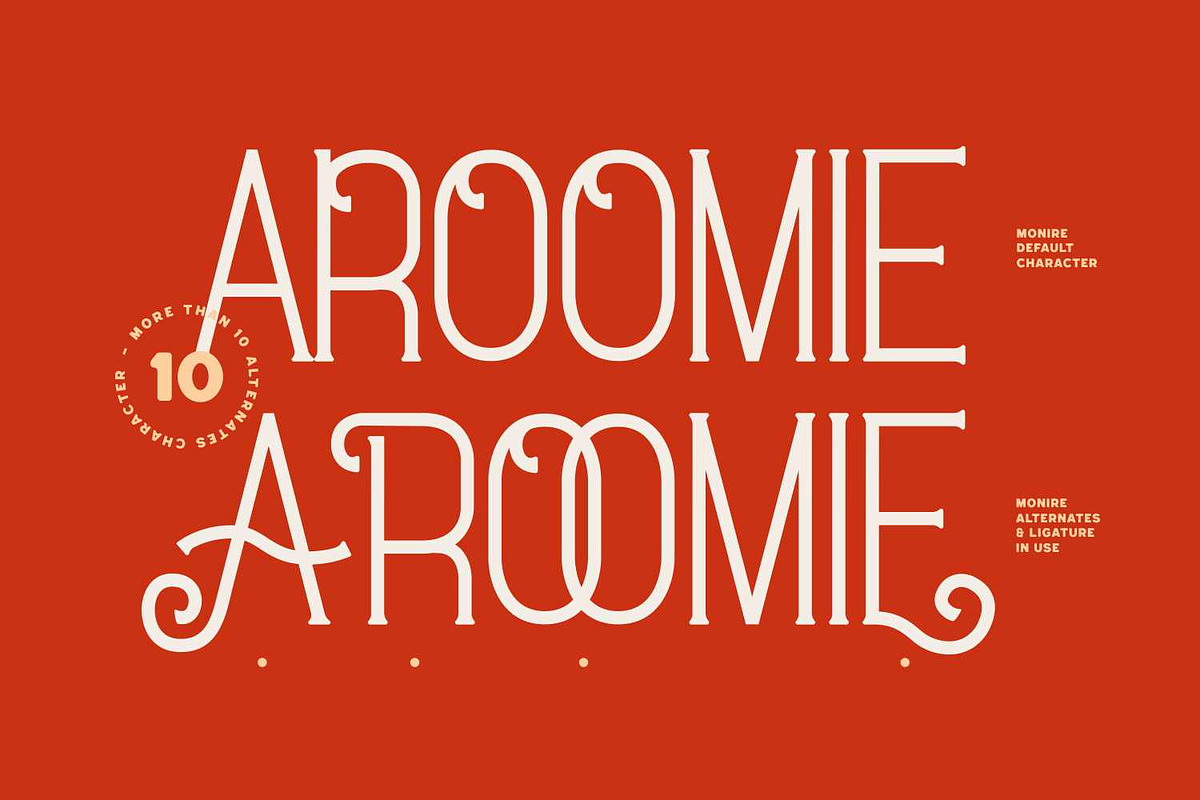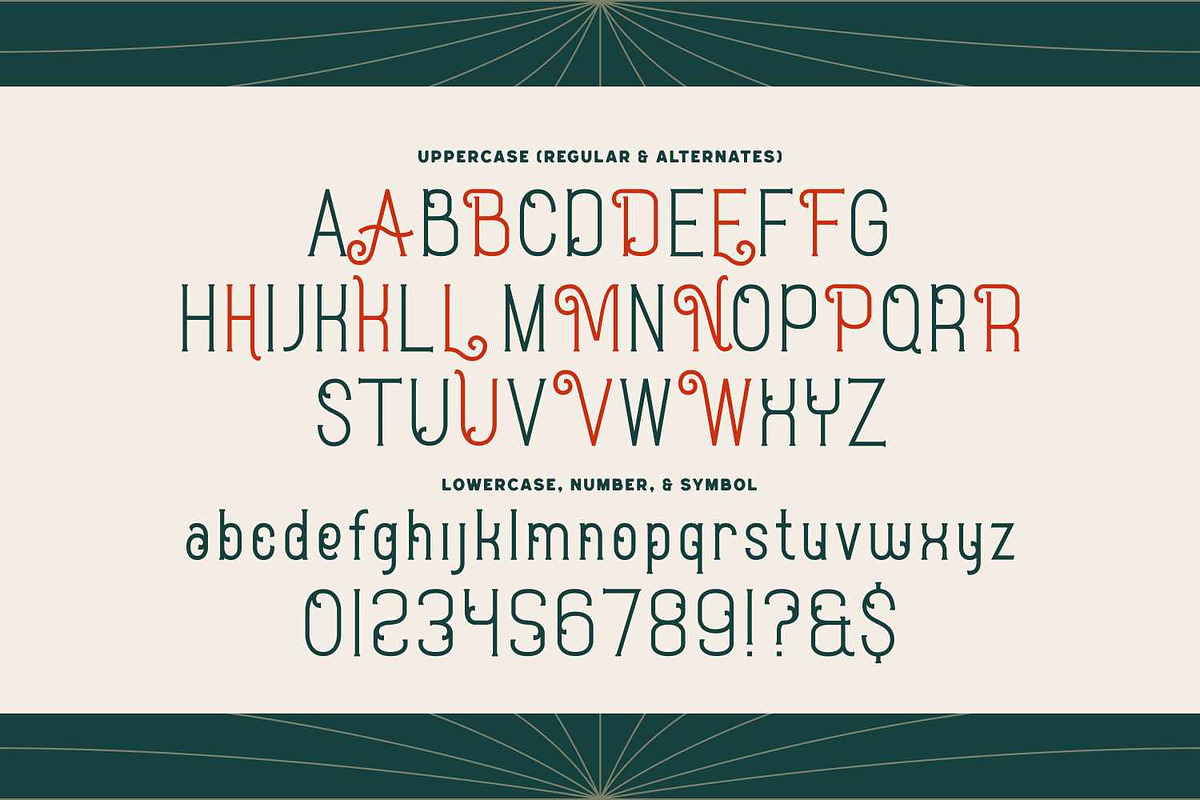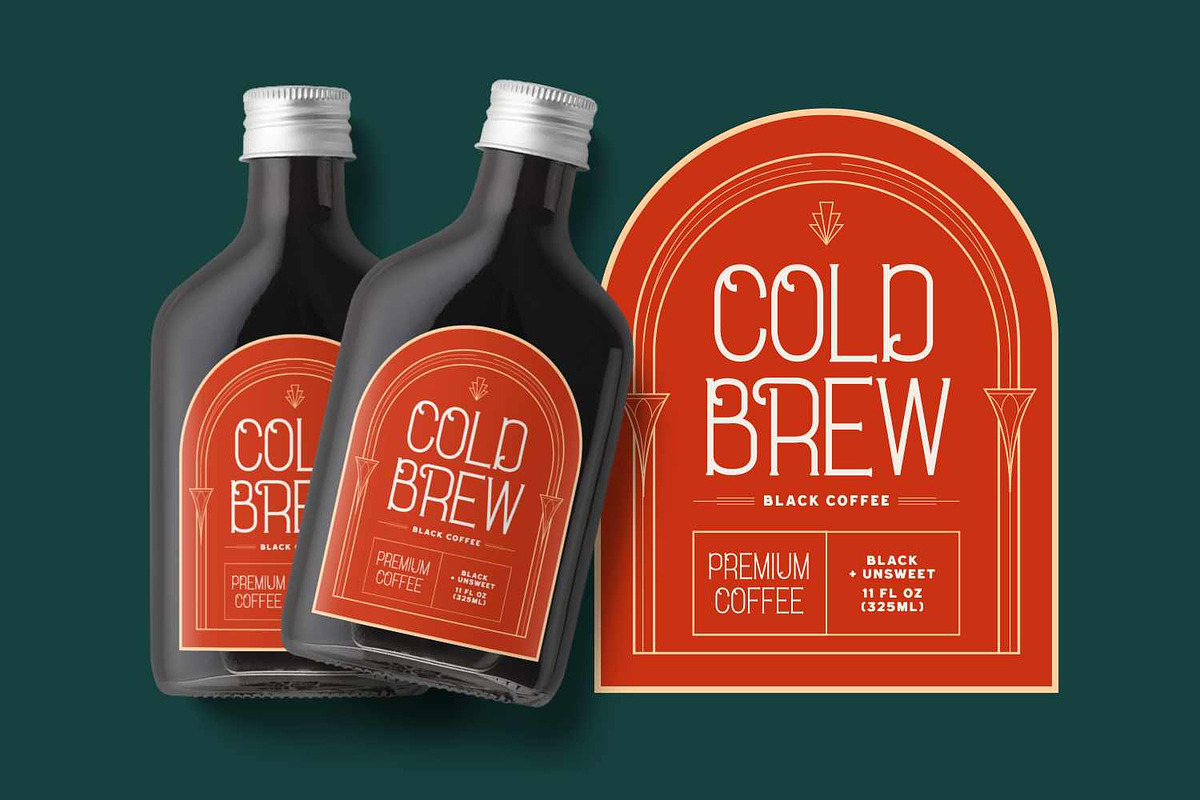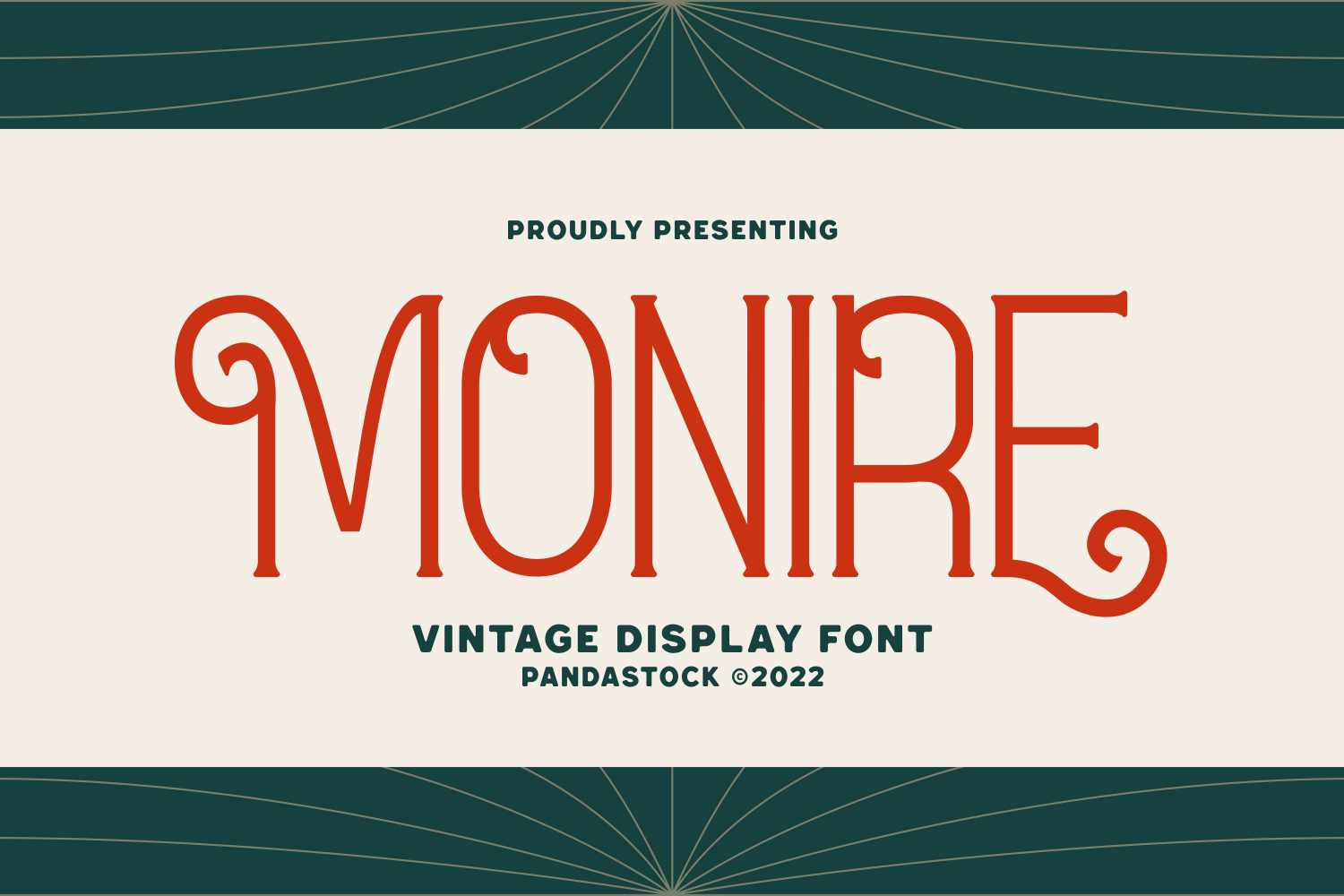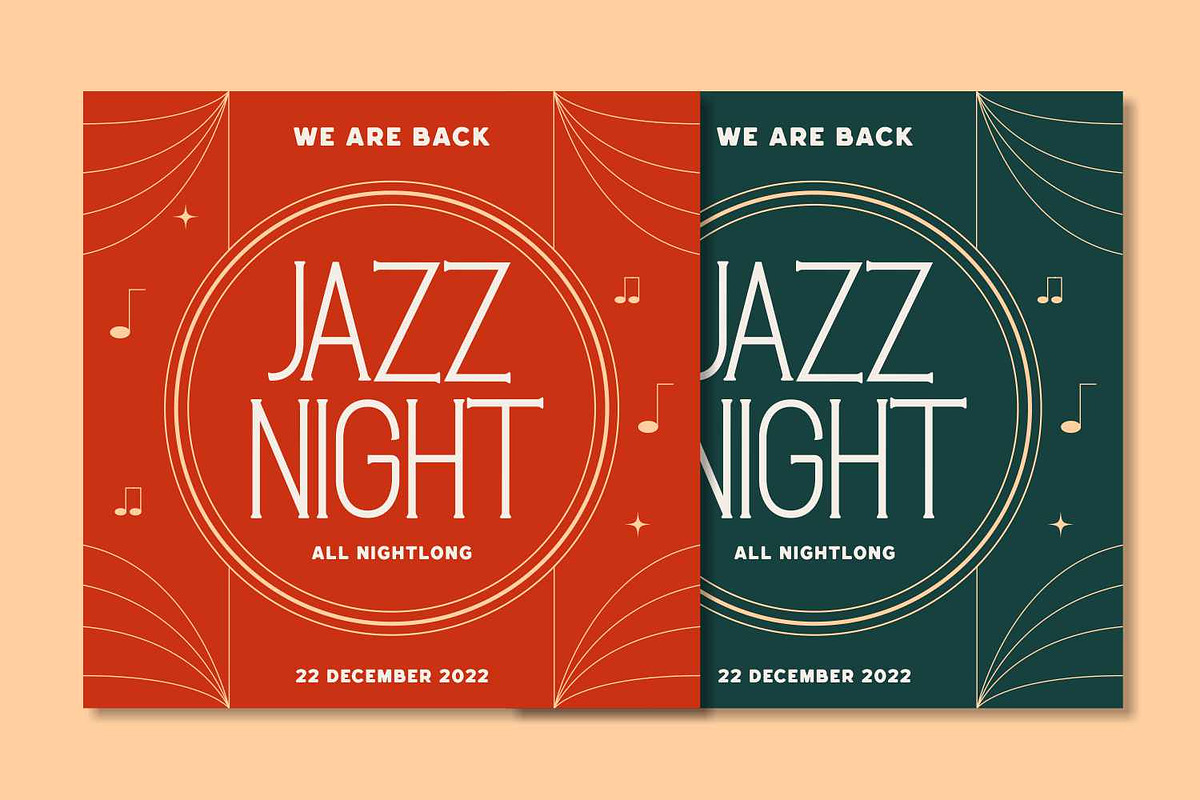
Monire - Classy Serif Typeface
Monire is a classy, vintage inspired display font with a tall, narrow structure. The uppercase letters feature delicate swirls and curly especially on A, N, R, V, and others creating a character set that's both playful and elegant. Monire's swash and curly letterforms are inspired by the artistic flourishes of early 20th century sign painting and art deco aesthetics, reimagined with a clean, modern twist.
This font is perfect for jazz night posters, art gallery shows, luxury gift shops, event posters, boutique branding, coffee packaging, cocktail bar menus, and any design channeling the spirit of 1920s – 1940s entertainment. Use Monire anywhere you want retro energy with a modern polish.